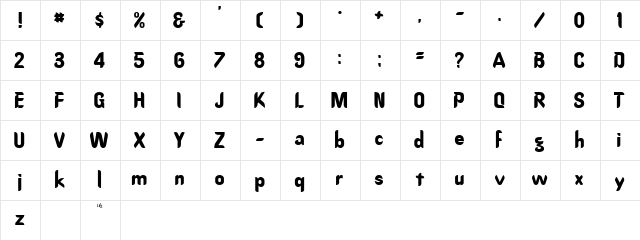
OregonDry Normal Free Font
OregonDry Normal
Design Context for OregonDry
OregonDry is a composed and adaptable typeface that performs quietly and consistently across a wide range of design contexts.